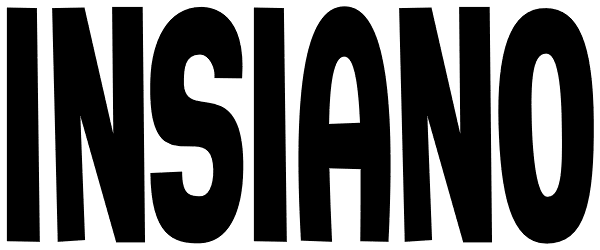
Insiano
Insiano is a gentle mix of upper- and lowercase, comes with smart ligatures and a cool comic feel! You will need to use OpenType supporting applications to use the ligatures.
Insiano Font